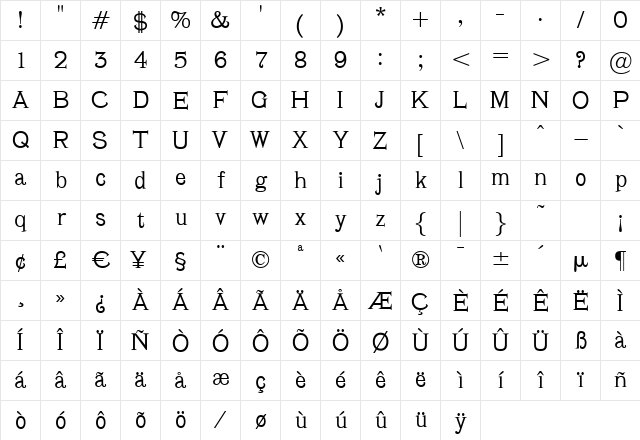
Beacon Regular
Beacon Family
Complete Beacon Regular glyph index. Displaying only characters natively supported by Beacon Regular font.
Design Context for Beacon
Beacon is a composed and adaptable typeface that performs quietly and consistently across a wide range of design contexts.